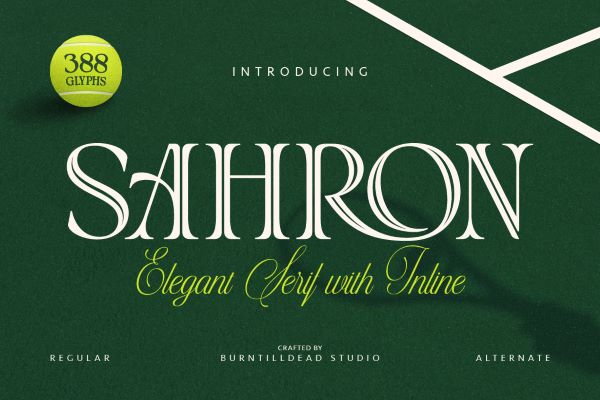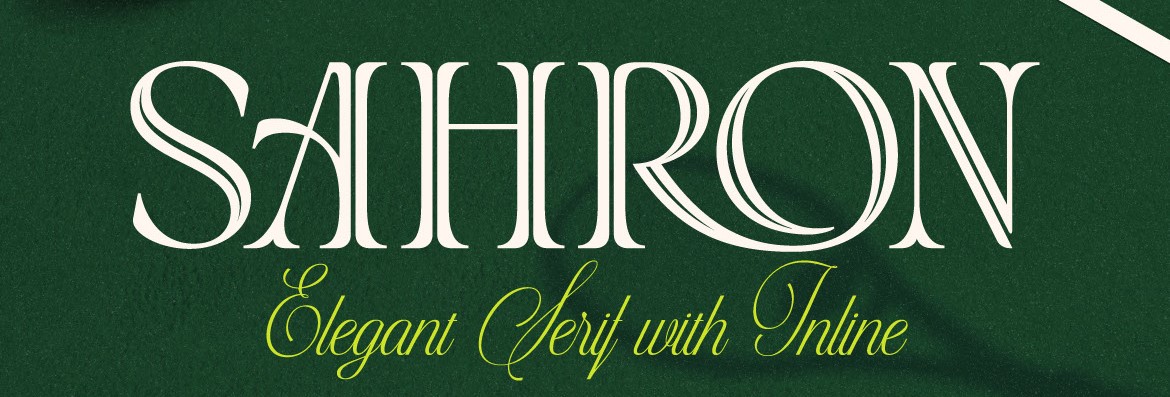
Sahron Font
Sahron by Eric Burntilldead is an elegant serif typeface defined by a striking inline detail that runs through its letterforms, adding a layer of sophistication that separates it immediately from conventional display serifs. Designed to feel both modern and timeless, it pairs clean, smooth curves with bold visual weight — expressive enough for strong headlines, refined enough for luxury contexts. Alternates and stylish ligatures extend its versatility, while multilingual character support makes it a practical choice for international work. Free for personal use.